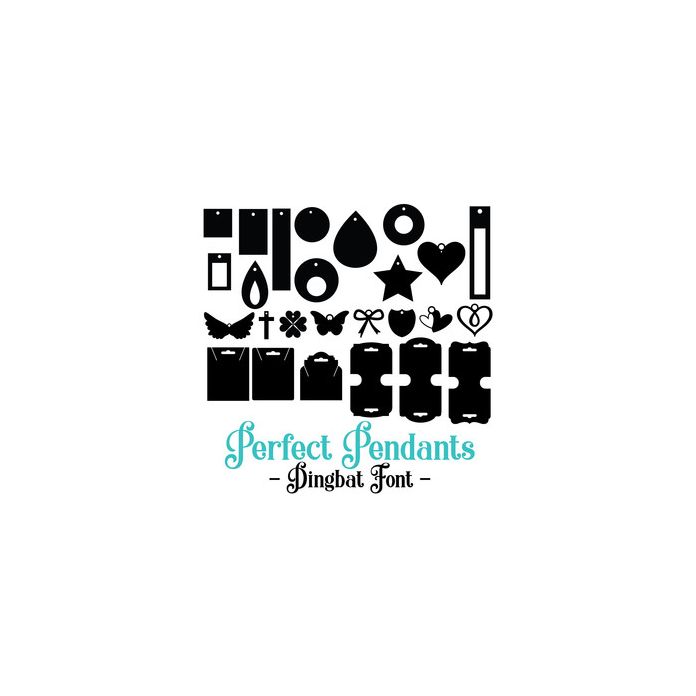
Perfect Pendants Dingbat Font. Contains 26 individual pendants and backer cards with euroslot at the top. Base shapes are allocated to upper and lower case. All can be accessed via glyphs. My other fonts can be found in the Silhouette store. For more design ideas, coordinating designs & products and inspiration, please visit my blog http://www.sarahhurleyblog.com